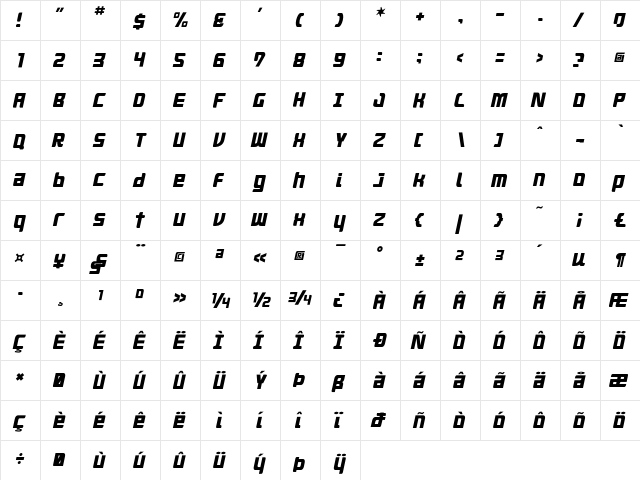
Aquasky20ALP Italic
Design Context for Aquasky20ALP Typeface
Aquasky20ALP is a composed and adaptable typeface that performs quietly and consistently across a wide range of design contexts. The slanted form adds forward momentum and visual energy.
Pro Tip: Try Aquasky20ALP for annotation and caption copy alongside an upright companion — the contrast in angle creates a dynamic but ordered typographic system.